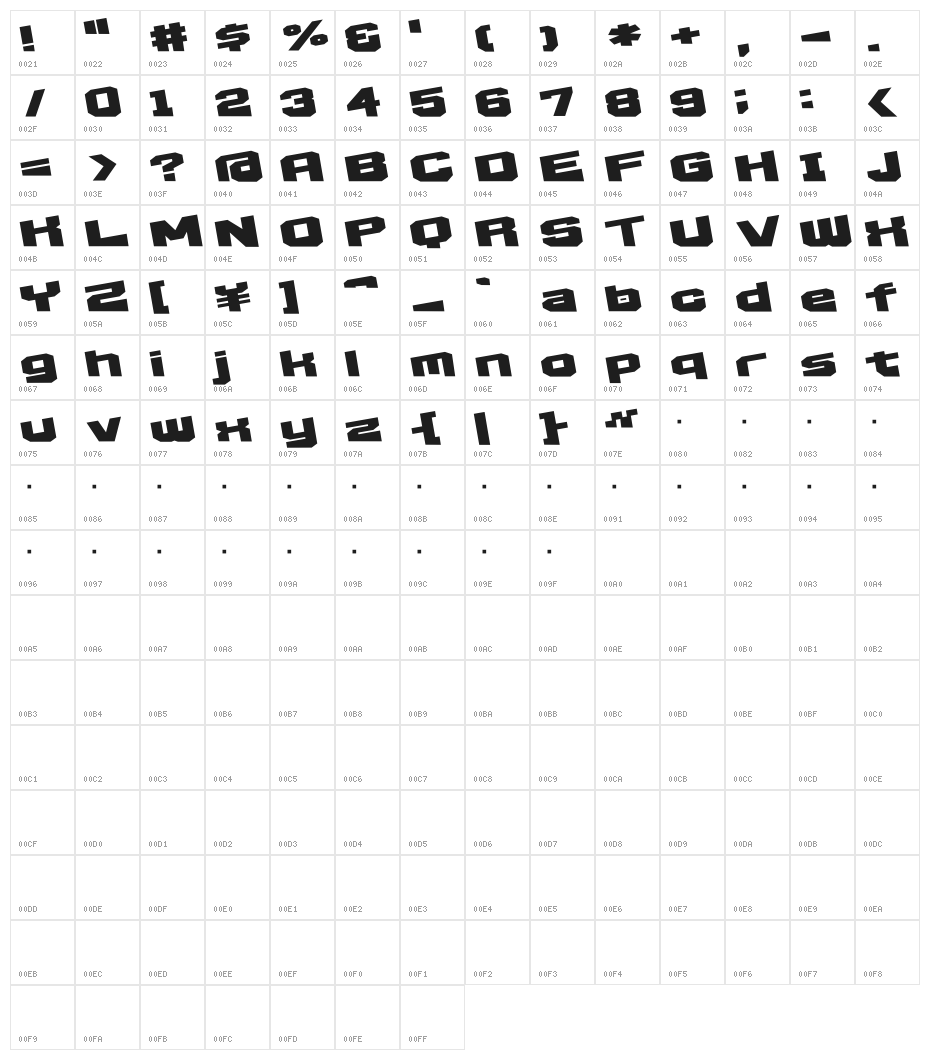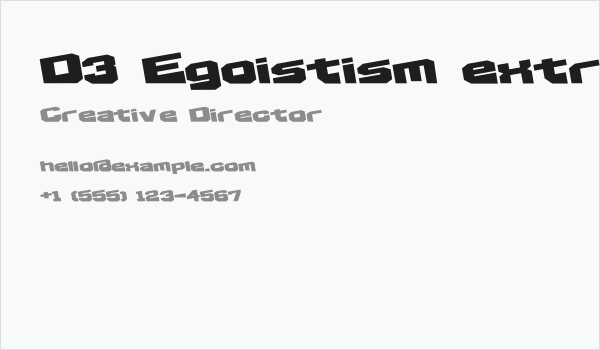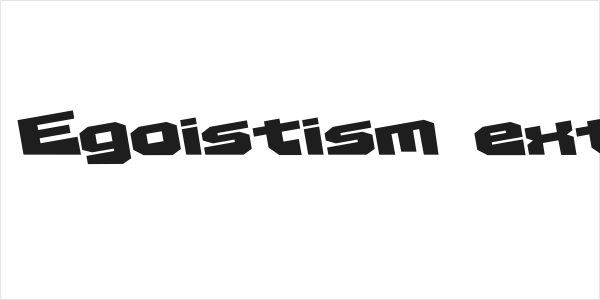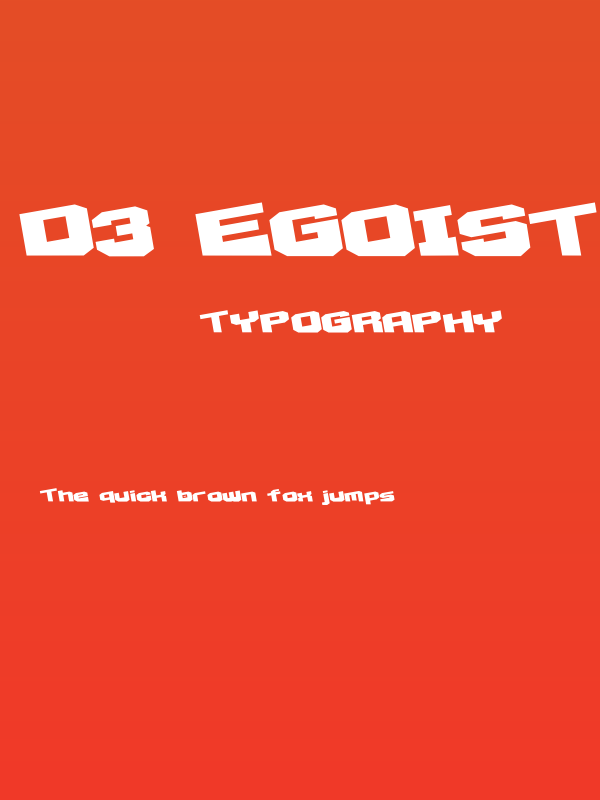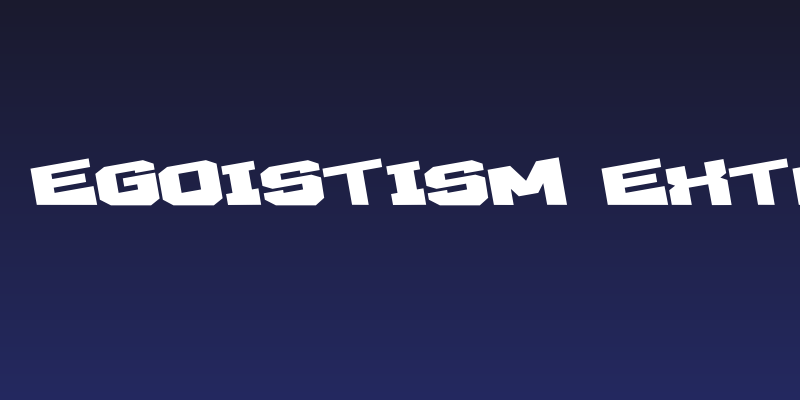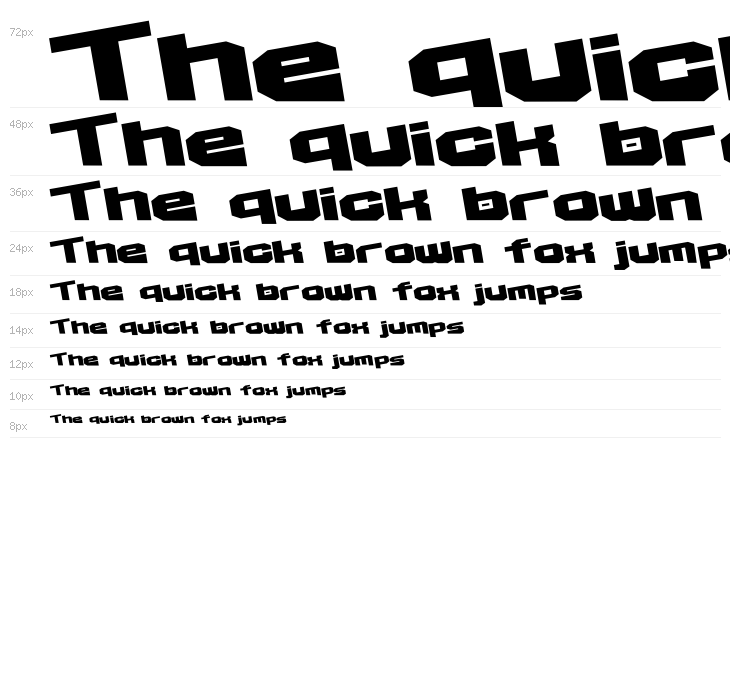
D3 Egoistism extra Font
D3 Egoistism extra Description
This font features a bold and angular design, characterized by its geometric and blocky letterforms. The uppercase and lowercase letters maintain a consistent style, with sharp edges and a slightly condensed appearance. The numbers and special characters follow the same aesthetic, providing a cohesive look across all elements. The font's unique style gives it a modern and edgy feel, making it stand out in any design. Its strong presence and distinct character make it suitable for projects that require a bold statement.
| Proposed Projects | Ideal for posters, logos, video game graphics, and any project needing a bold, modern touch. |